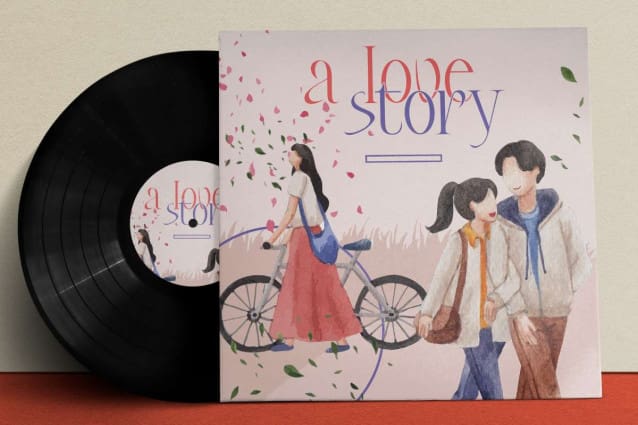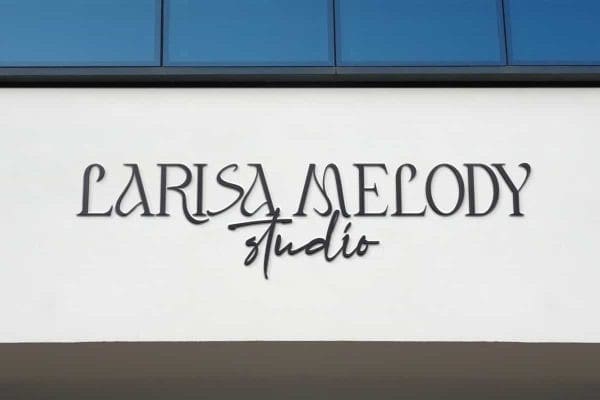
Larisa Melody Font
Larisa Melody Font is a uniquely beautiful artistic serif display font by RaisProject Studio. This font has thin characters with beautiful wave lines like flowing melody. It will be good for any designs, such as album cover, brand image, custom design, flyer, invitation, label, magazine cover, marketing material, menu, poster, product packaging, quote, signage, stationery, website page, and more!
Larisa Melody Font including a complete set of basic Uppercase and Lowercase characters, Numerals, and large range of Punctuation. This font will be suitable for various industries, such as accessories, advertising, beauty product, cafe, crafting, event or wedding organizer, fashion, home furniture, jewelry, marketing, movie, printing, publishing, real estate, restaurant, spa salon, etc.